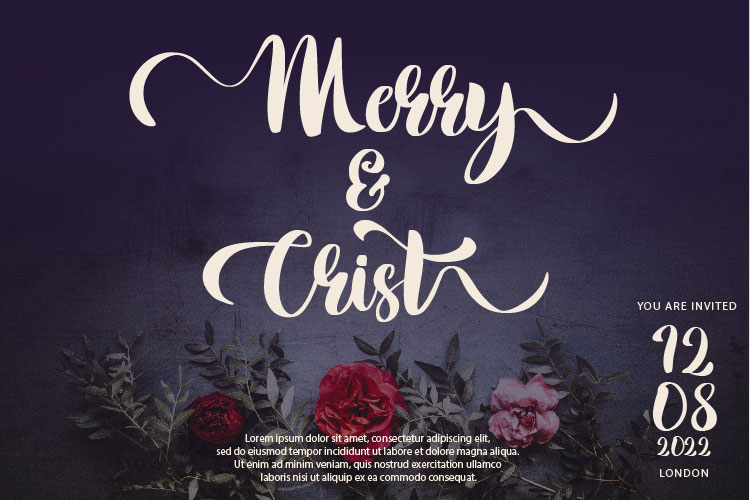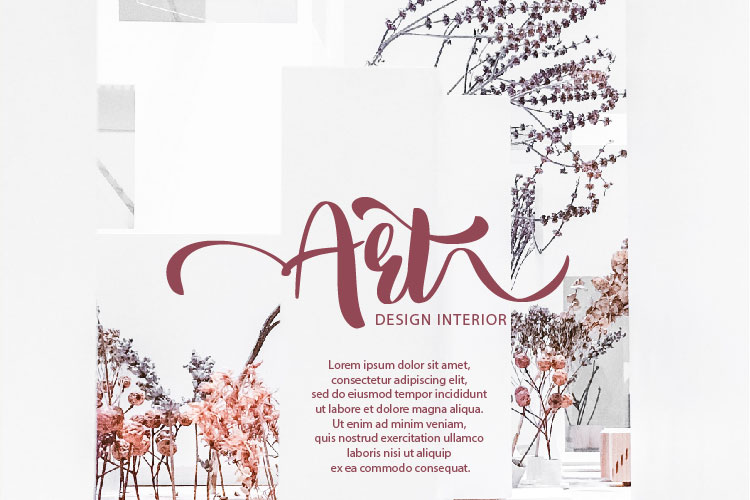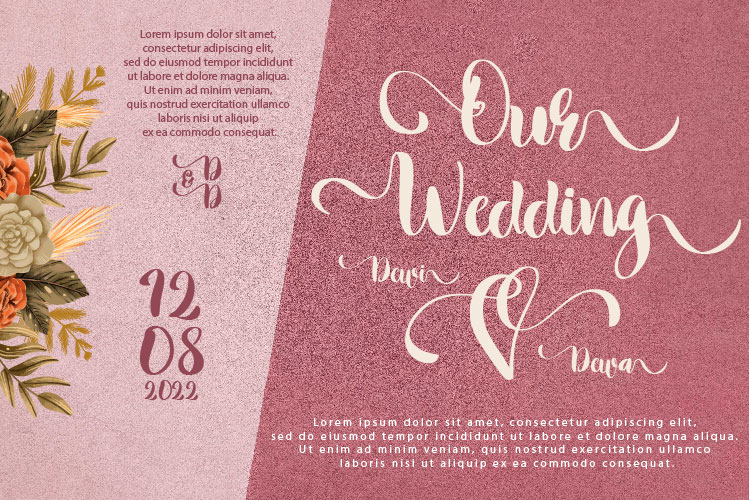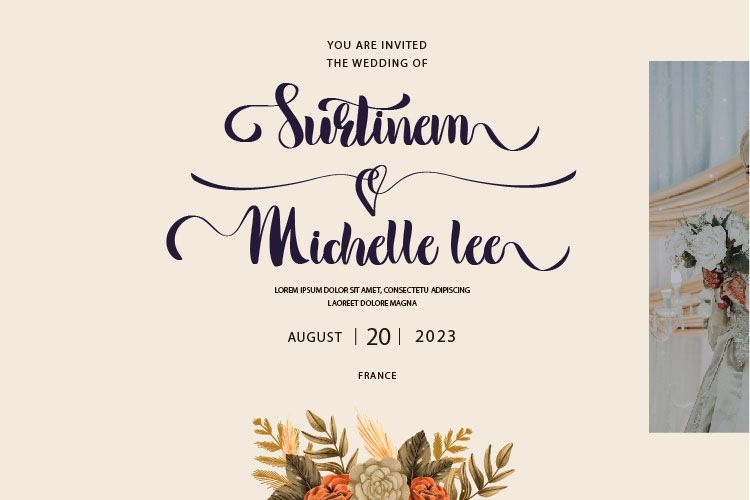
Rustic Font
Rustic Script Font
This is a modern script typeface, using style hand made with brushing. Rustic a beautiful for wedding card design, logotype, website header, fashion design and any more.